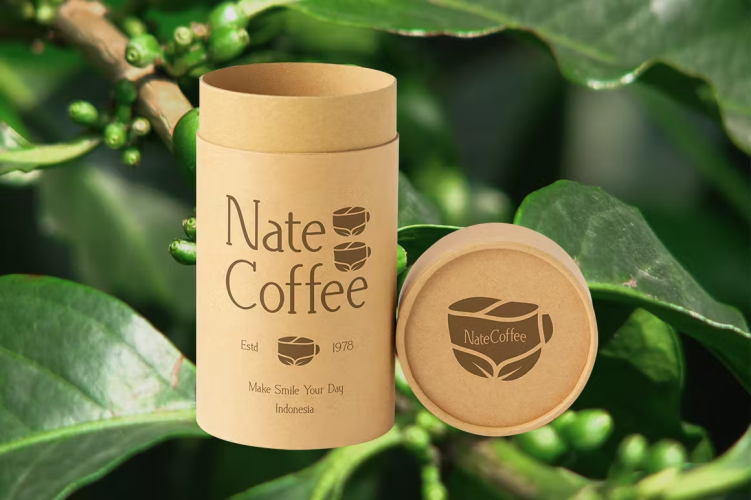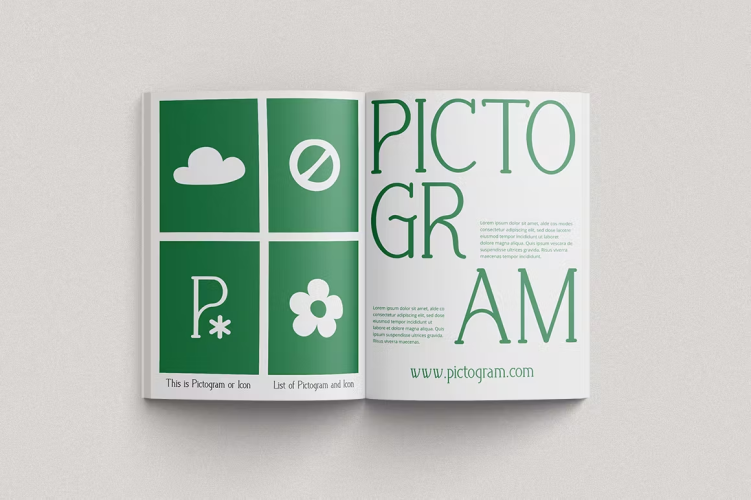
Rolexiantes Font
Rolexiantes is fresh slab serif font. It can easily be matched to an incredibly large set of projects, so add it to your creative ideas and notice how it makes them stand out!
Where Rolexiantes Font works best
Rolexiantes Font gives long-form text a classic, trustworthy rhythm — ideal for magazine spreads, annual reports and book interiors.
Pair Rolexiantes Font with generous letter-spacing for wordmarks in fashion, hospitality, wine and jewellery branding.
Use Rolexiantes Font for slide titles in Keynote, PowerPoint or Google Slides to add authority without looking dated.
What is Rolexiantes Font good for?